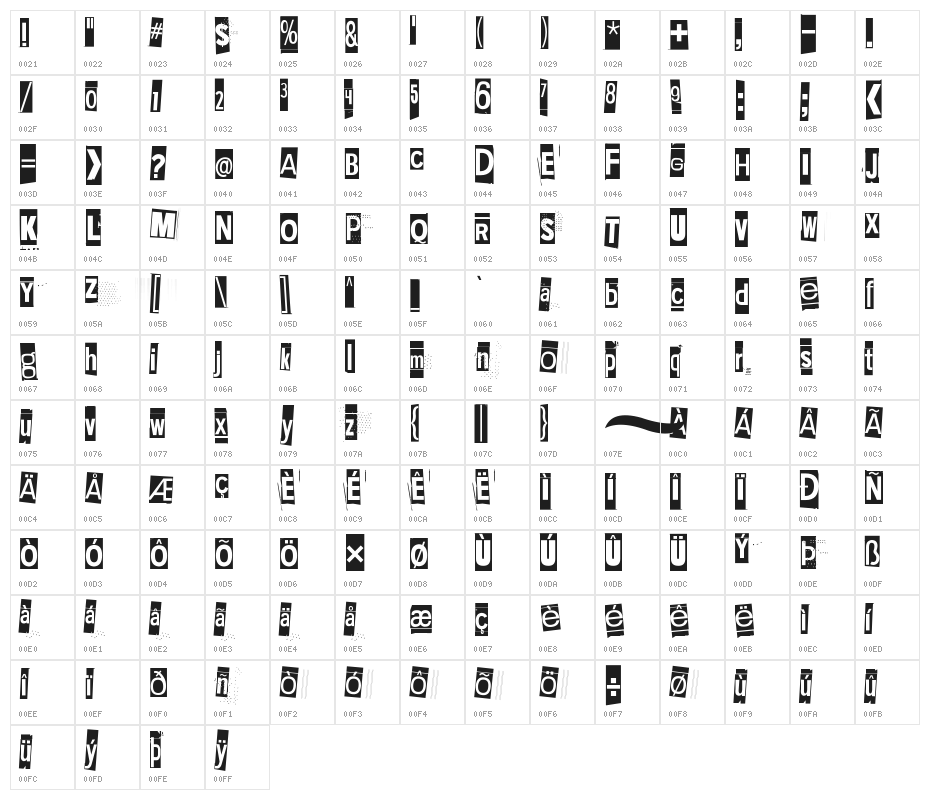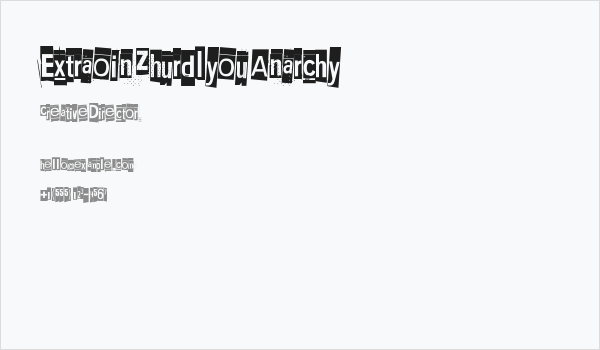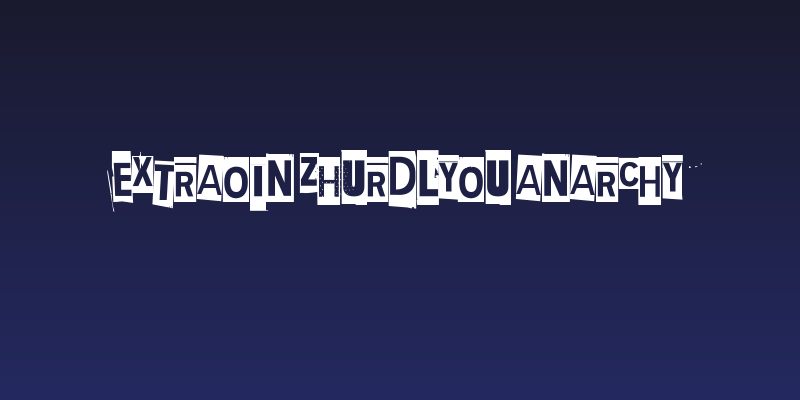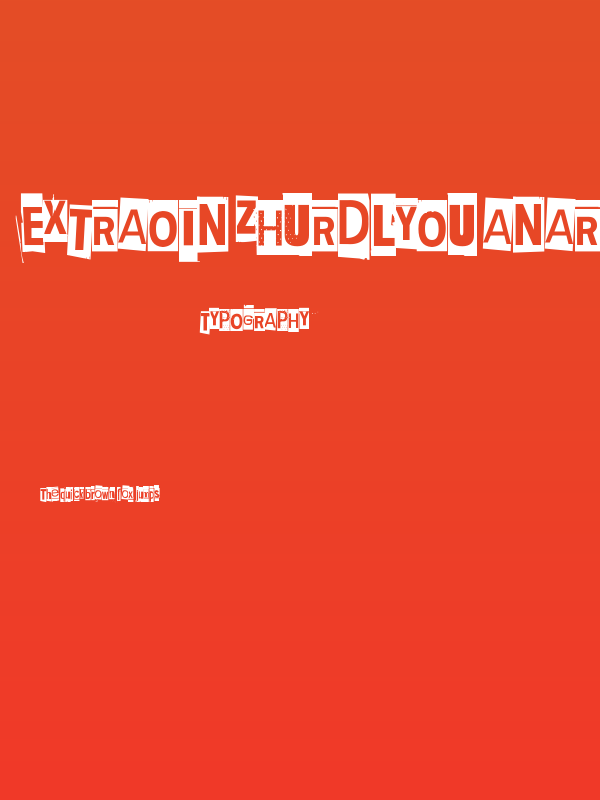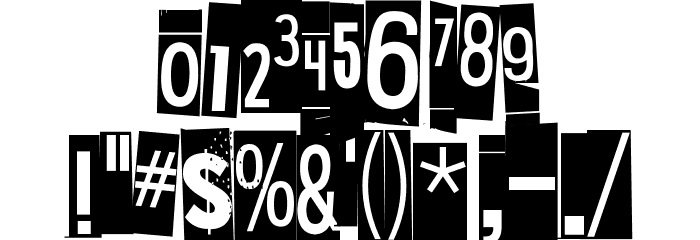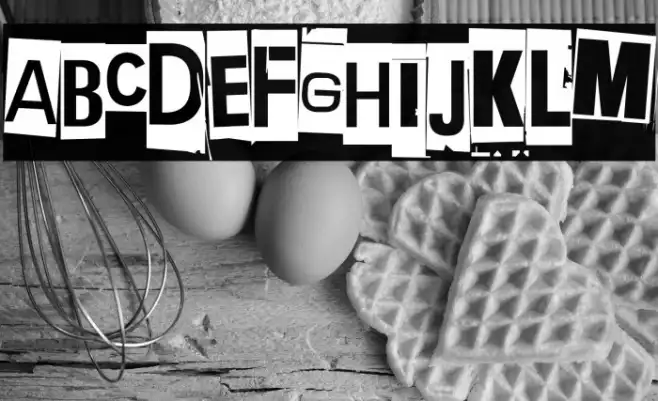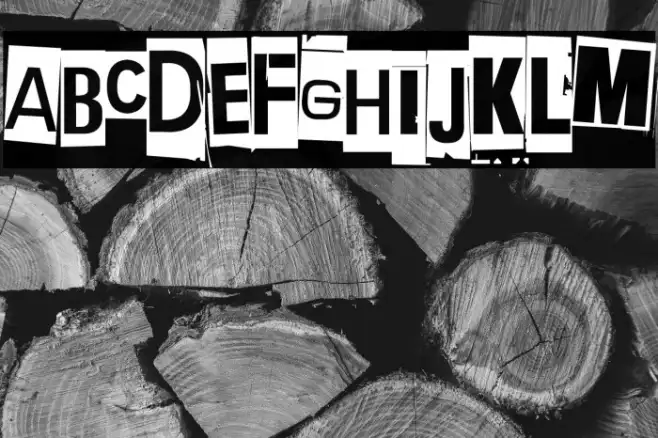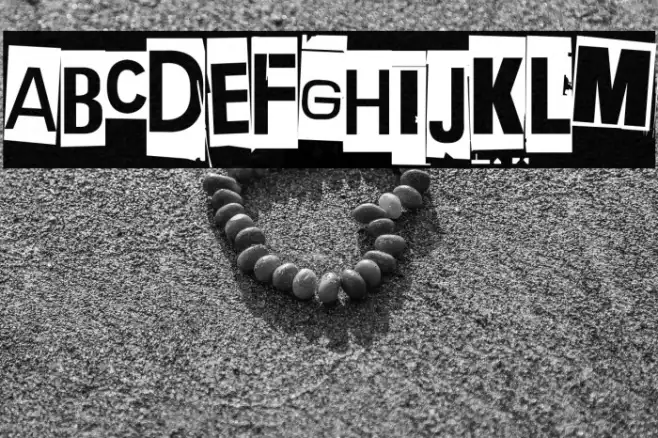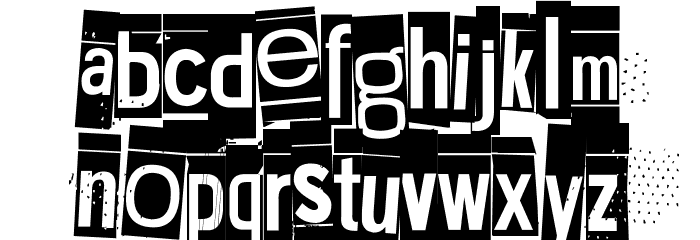
Extraoin Zhurdlyou Anarchy Font
| Gesamtstil | Anarchic, Punk, Rebellious |
| Anwendungsfall | Posters, Album covers, Branding |
| Vorgeschlagene Projekte | Ideal for punk-themed posters, album covers, rebellious branding, or any project needing a bold, unconventional look. |